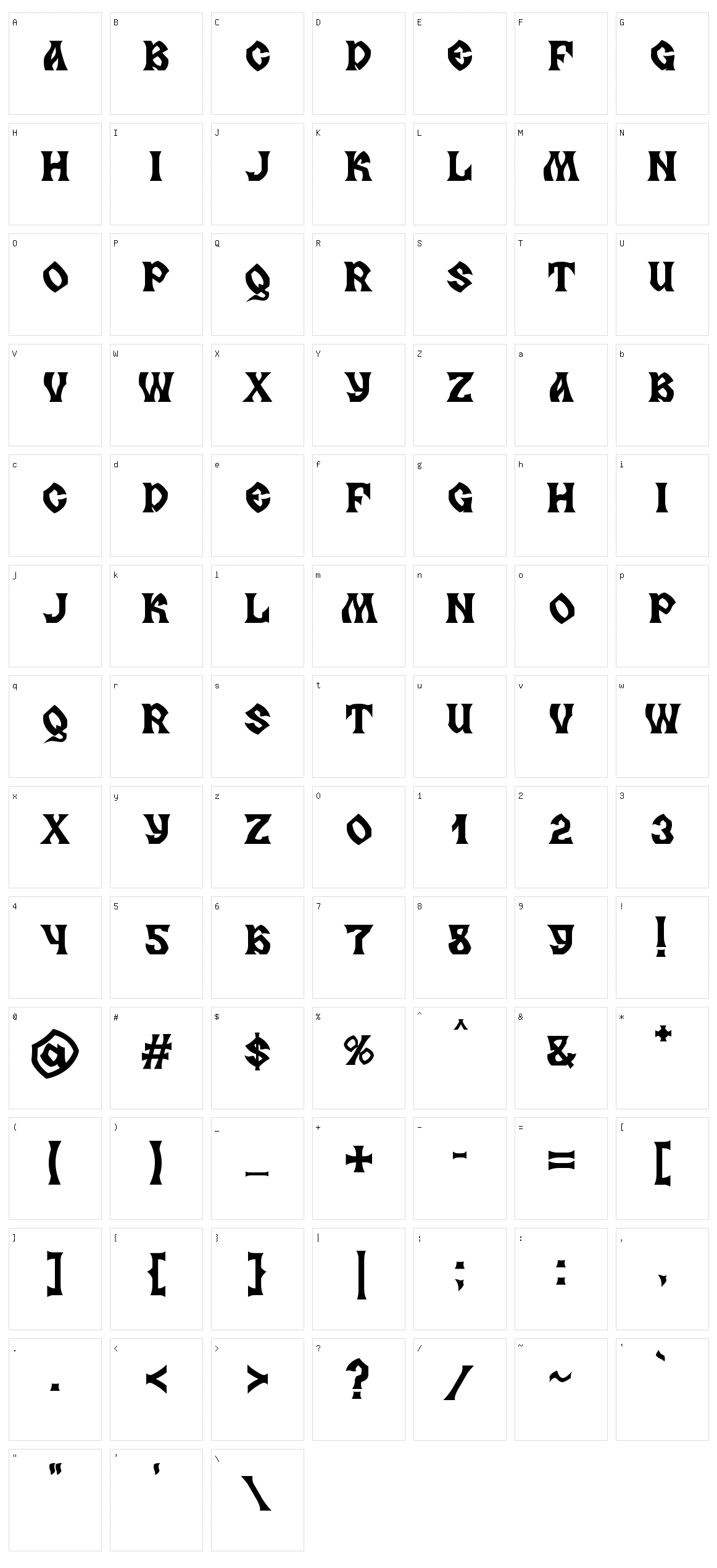
MB Slavonic Minsk
Designed by: Irina ModBlackmoon
MB-Slavonic Minsk - Slavonic Medieval Font by ModBlackmoon [Hand-drawn, manually vectorized].
Incl. English, European and Cyrillic letters and Numbers. Kerning pairs are included. Both small and large size are well readable. Manually vectorized from hand-drawing, so may be scaled to extra large size without quality loss.